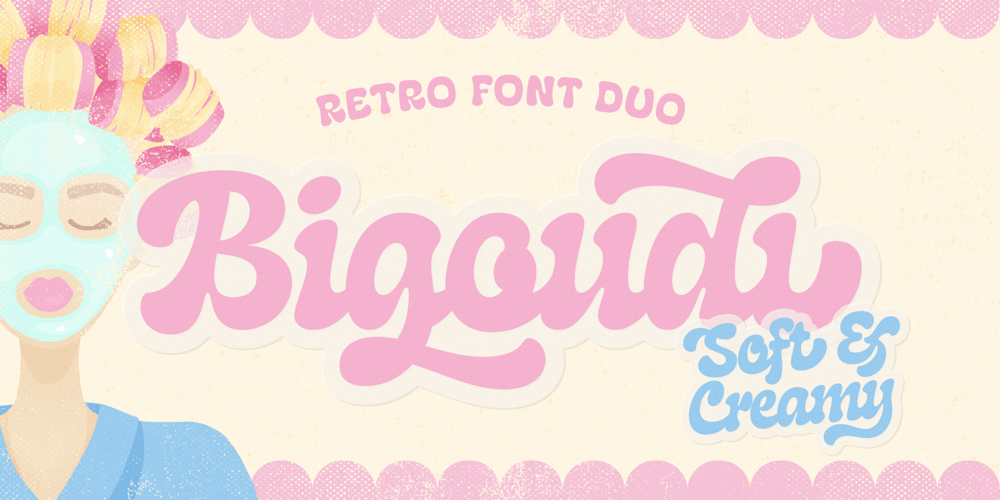
Bigoudi Font Family was designed by Jessika Granell and published by The Paper Town. Bigoudi contains 2 styles and family package options. Bigoudi is a soft and creamy vintage typeface.The font duo is inspired by handcrafted bakery, girly haircare and retro ads.It is merging 70s lettering style with a 50s inspired mood board using a gentle pastel color palette that gives that cute cupcake look. All these together create a playful yummy blend, loaded with tons of positive vibes.Initially intended for logo design, the script font has a smooth and compact style with warm letterforms, rounded ink-traps, that would give any text a flowing motion with that retro kind of feeling.Bigoudi Script features a numerous of stylistic sets, contextual alternates, ligatures and swashes letters that make it so easy to create a typographic lettering style with minimal effort.It is paired with a cute rounded little all caps sans serif which compliment the script as the perfect subline or can even steal the show as the main font.Especially appropriated for display uses, the Bigoudi Font Duo will give that friendly warm welcome feeling to your branding that people would love.With a set of 670+ glyphs, Bigoudi comes with a complete set of letters, numbers, punctuation, symbols and a multilingual support which includes diacritics for every stylistic alternate.Use it for a various range of projects from logo to posters, t-shirt design, stickers and pins, instagram quotes, retro branding, web design and more.- – – – – – – – – – – -Opentype Features:The lowercase end swashes are available by activating the contextual alternate feature and the swash feature on Adobe programs. You can then use the glyphs panel to select your end swash.